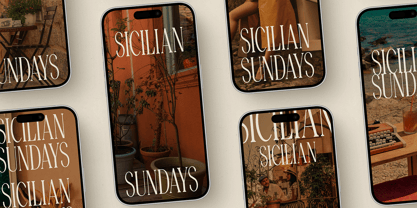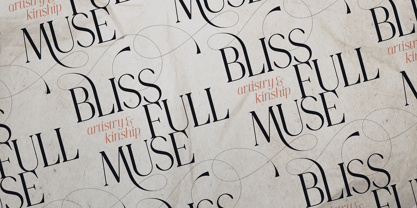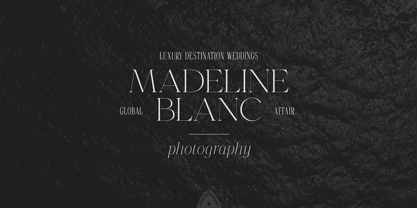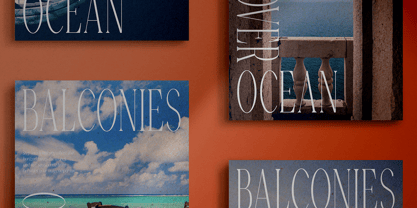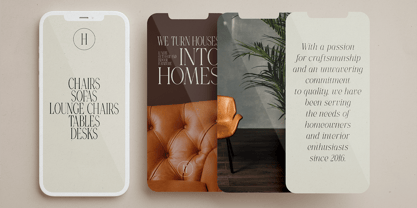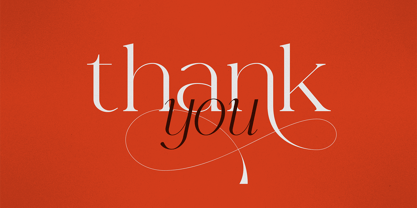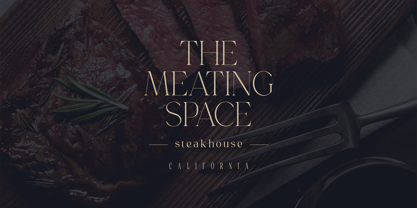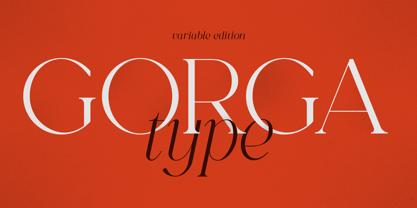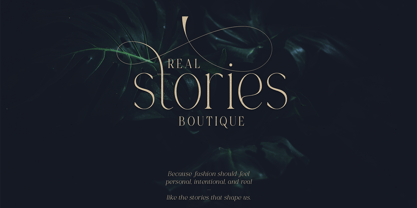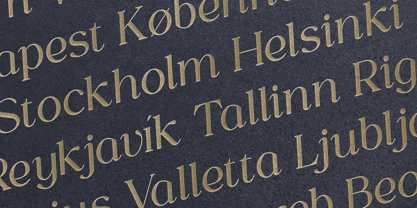
Gorga T VF
by VP Creative Shop
The Gorga T VF Font Family was designed by Vladimir Fedotov, Plamen Petrov and published by VP Creative Shop. Gorga T VF contains 2 styles and family package options. More about this family
Built to inspire modern elegance and timeless sophistication, Gorga Type is fully multilingual, supporting 85 languages with a rich arsenal of alternate glyphs, swashes, and exquisite typographic details. Whether you're designing for luxury branding, editorial layouts, wedding invitations, fashion campaigns, or high-end hospitality, Gorga Type is crafted to captivate.
Designers: Vladimir Fedotov, Plamen Petrov
Foundry: VP Creative Shop